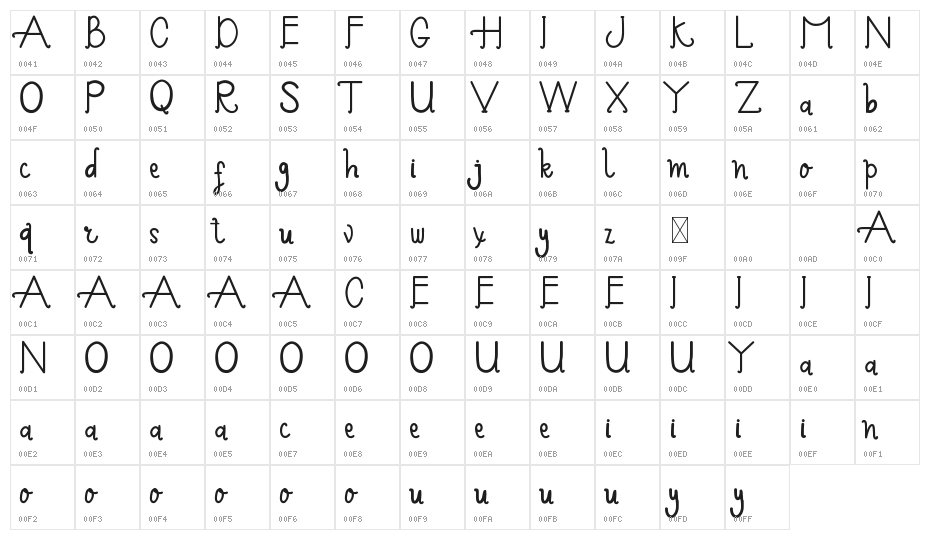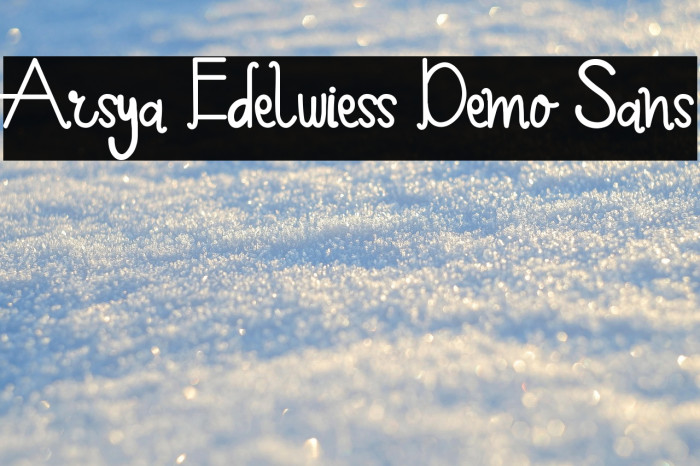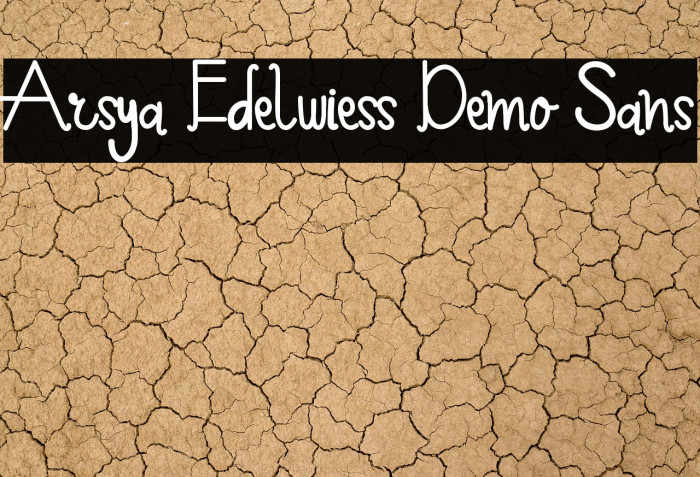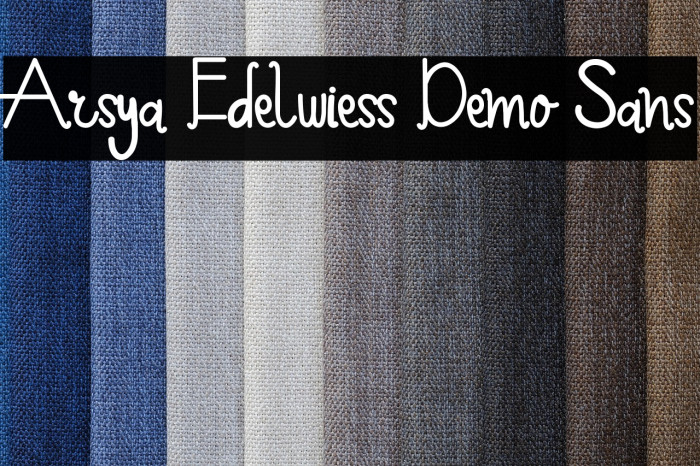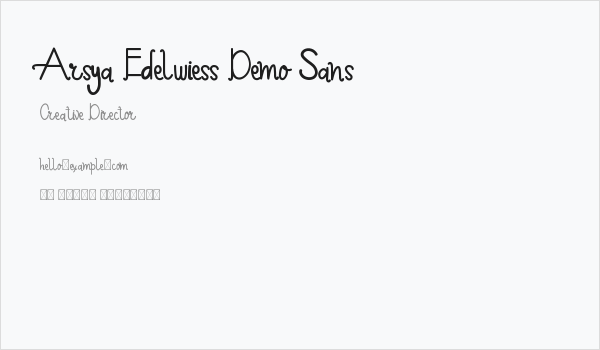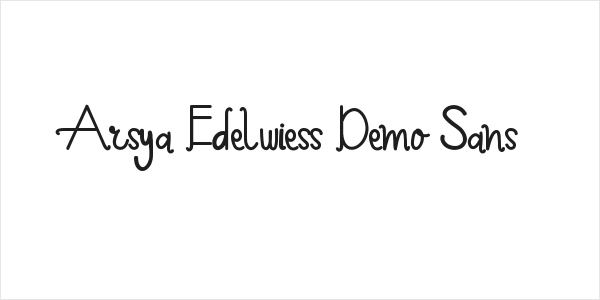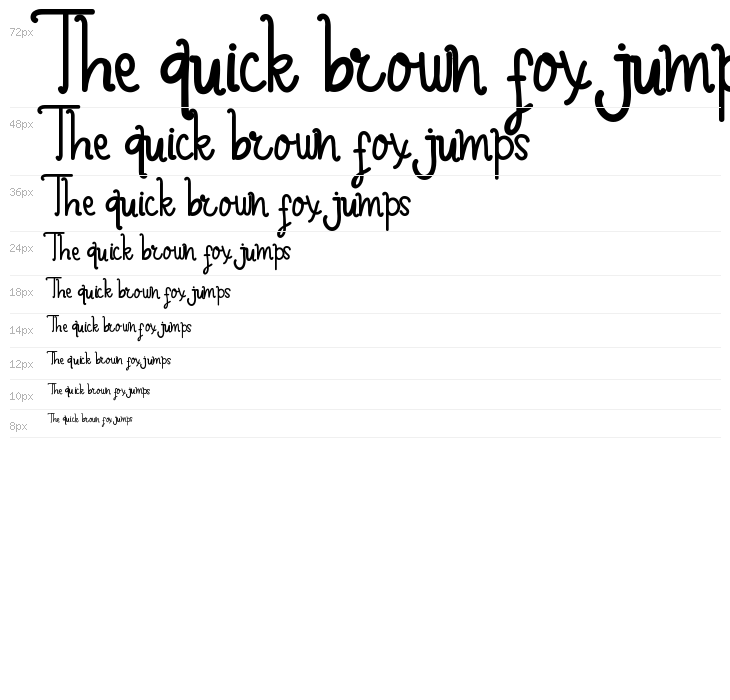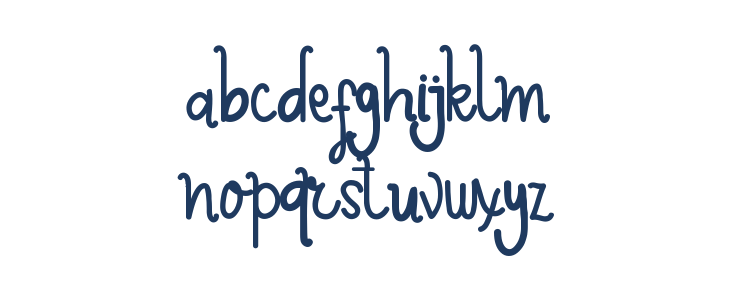
Arsya Edelwiess Demo Sans Font
Arsya Edelwiess Demo Sans Description
This font features a playful and whimsical design with a unique blend of curves and straight lines. The uppercase letters are characterized by their elongated vertical strokes and rounded terminals, giving them a distinctive, almost hand-drawn appearance. The lowercase letters maintain a consistent style, with smooth curves and a slightly bouncy baseline that adds to the font's charm. The numerals and special characters follow the same playful aesthetic, ensuring a cohesive look across all text elements. This font's overall style is both modern and decorative, making it suitable for projects that require a touch of creativity and fun.
| Proposed Projects | Ideal for children's books, playful branding, greeting cards, and creative posters. |